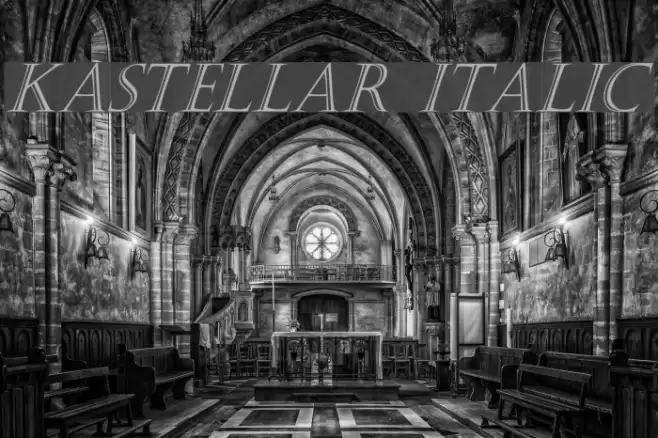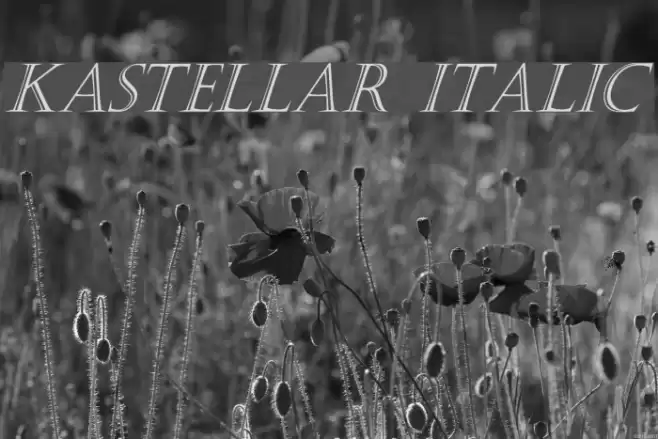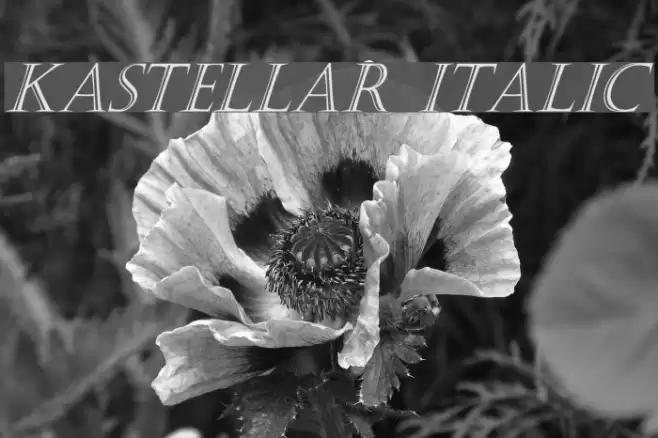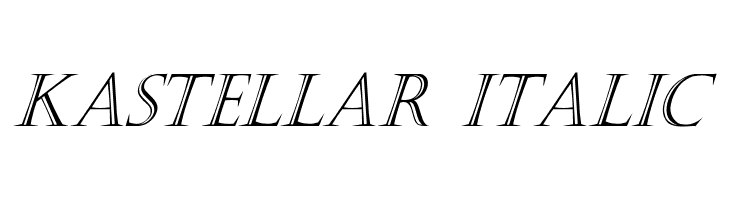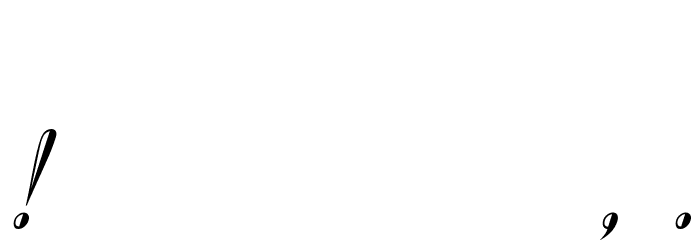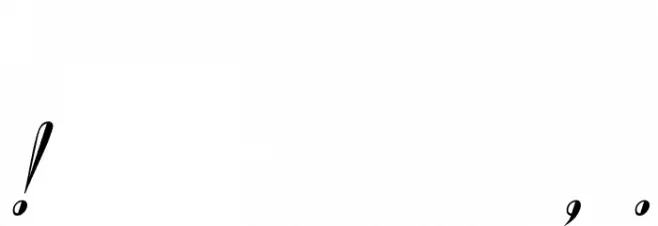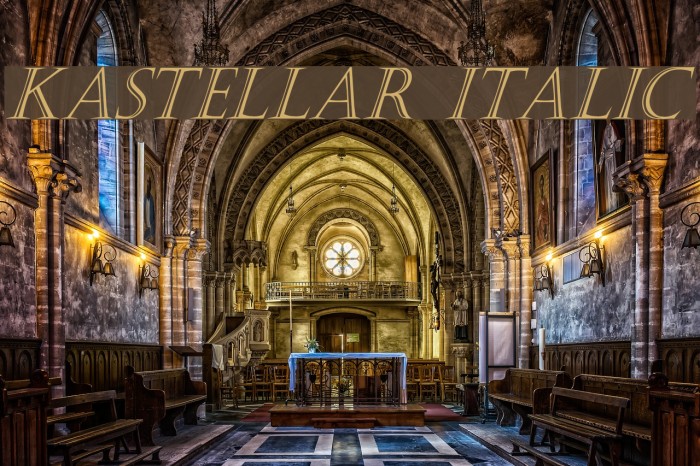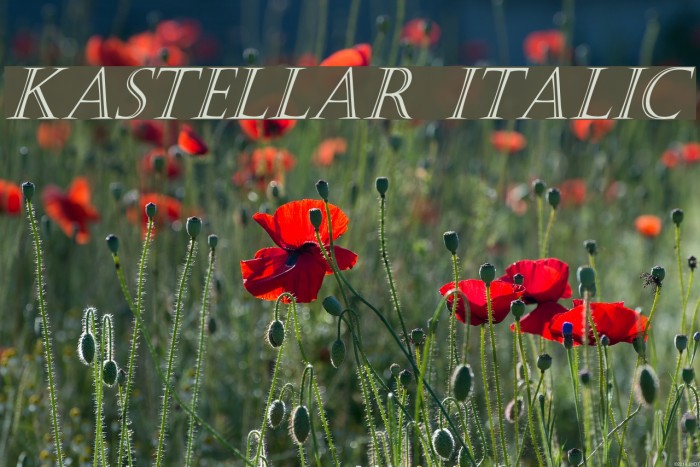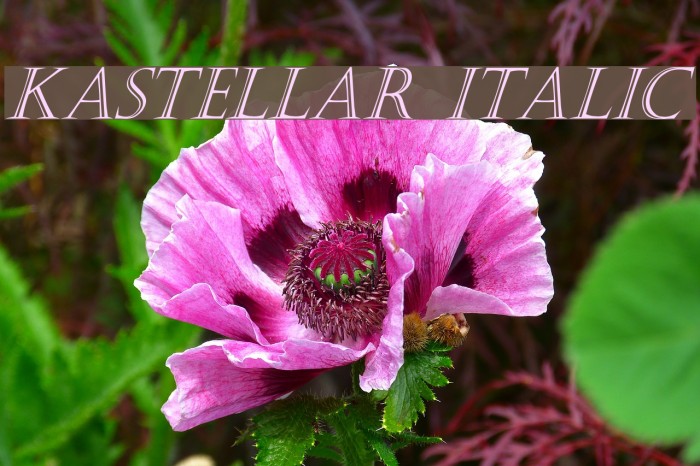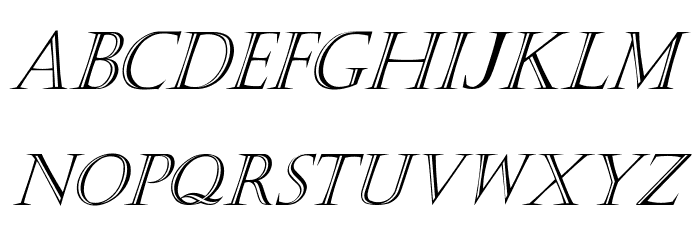
Kastellar Italic
This font features an elegant and sophisticated italic style, characterized by its sharp serifs and smooth, flowing lines. The letters are slightly slanted, giving a sense of motion and grace. The uppercase letters are tall and commanding, while the lowercase letters maintain a consistent style that complements the overall design. The font's thin strokes and high contrast between thick and thin lines add to its refined appearance, making it suitable for formal and decorative uses.
An elegant italic serif font with high contrast and sharp serifs.
- Proposed Projects: Ideal for wedding invitations, luxury branding, editorial headlines, and formal event programs.
- Category: Serif
- Contrast: High
- Overall Style: Classic
- Use Case: Headlines, Logos, Invitations